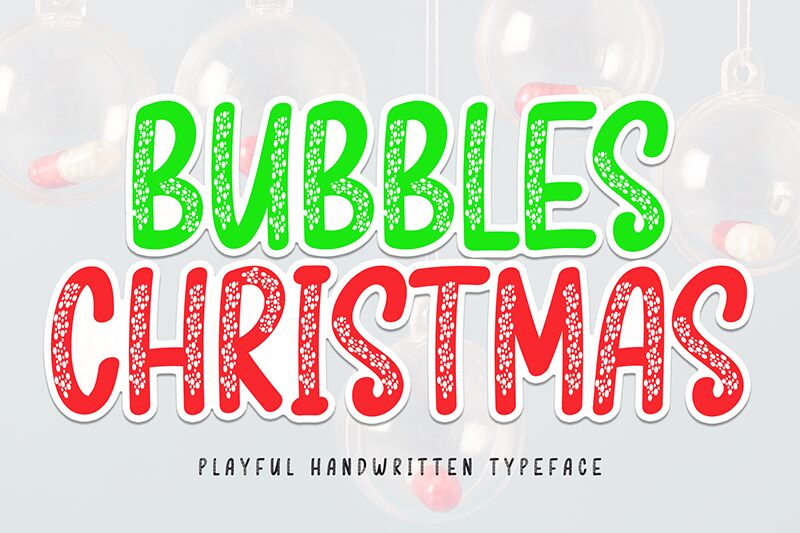
Bubbles Christmas font by Andi Moz is a free holiday font that is cheerful, festive, and vibrant. This joyful and decorative display typeface is designed to carry the spirit of the Christmas and New Year holidays. Its whimsical and youthful design gives each letter an exaggerated look similar to actual bubbly bubbles!
Spread joy with Bubbles Christmas by using it in party invitations, greeting cards, gift wrapping, Wall Street designs, ornaments, clothes, or personalized gifts. It’s your one horse open sleigh ride to spreading cheer during the most wonderful time of the year.
This is a sweet and friendly handwritten display font. Cute and fun, this font is ideal for writing wedding invitations, cards, or any other design that might need a playful touch!